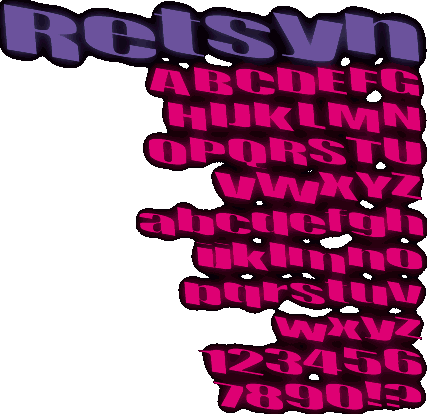
................................It's zany!................................It's topsy-turvy!................................It's wacky!................................It's nutty!................................It's madcap!................................It's insane!................................It's wild!................................It's daft!................................It's loony!................................It's cracked!................................It's crazed!................................It's demented!................................It's deranged!................................It's lunatic!................................It's bizarre!................................It's outrageous!................................It's doddering!................................It's impaired!................................It's daffy!................................It's slap-happy!................................It's drunken!................................